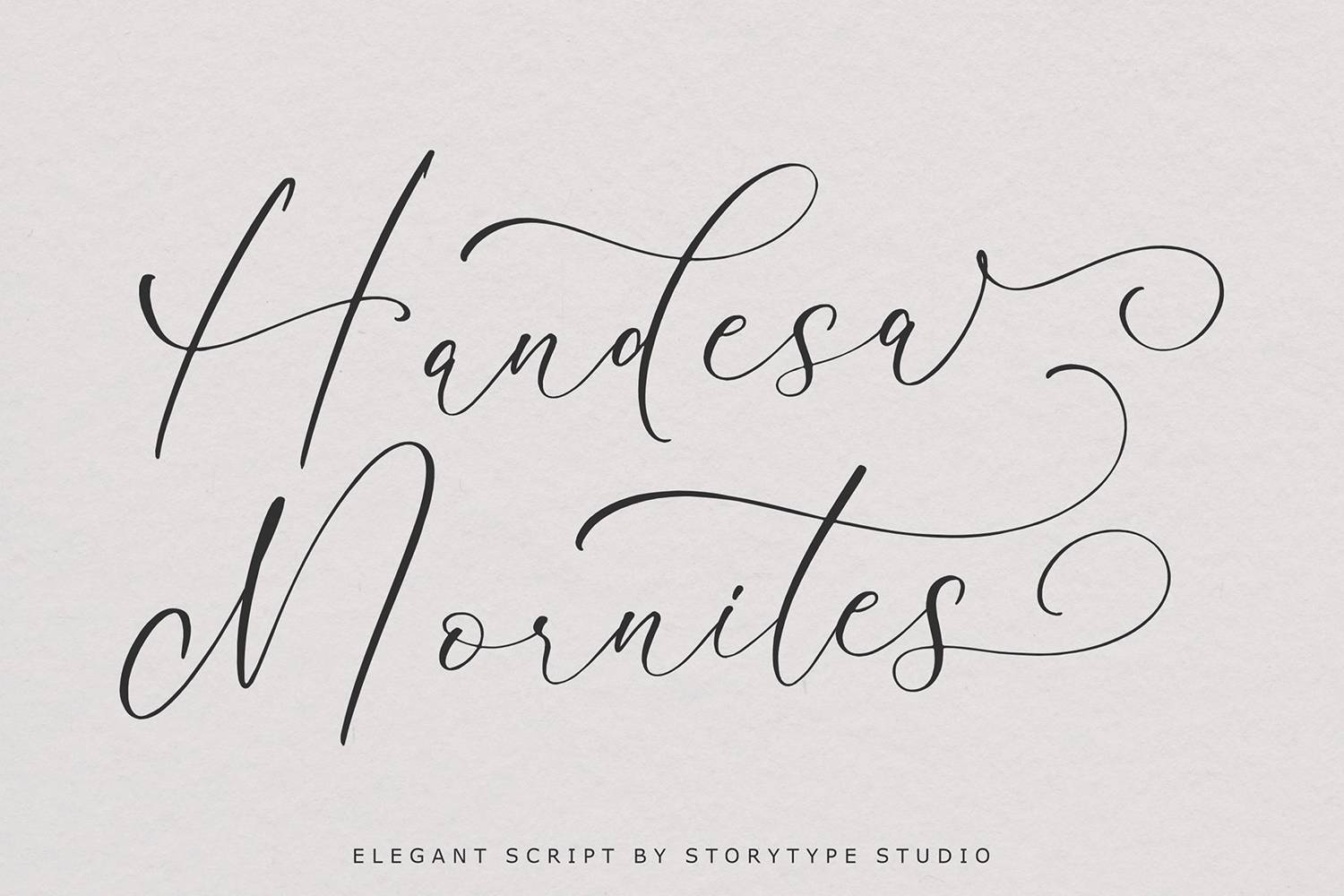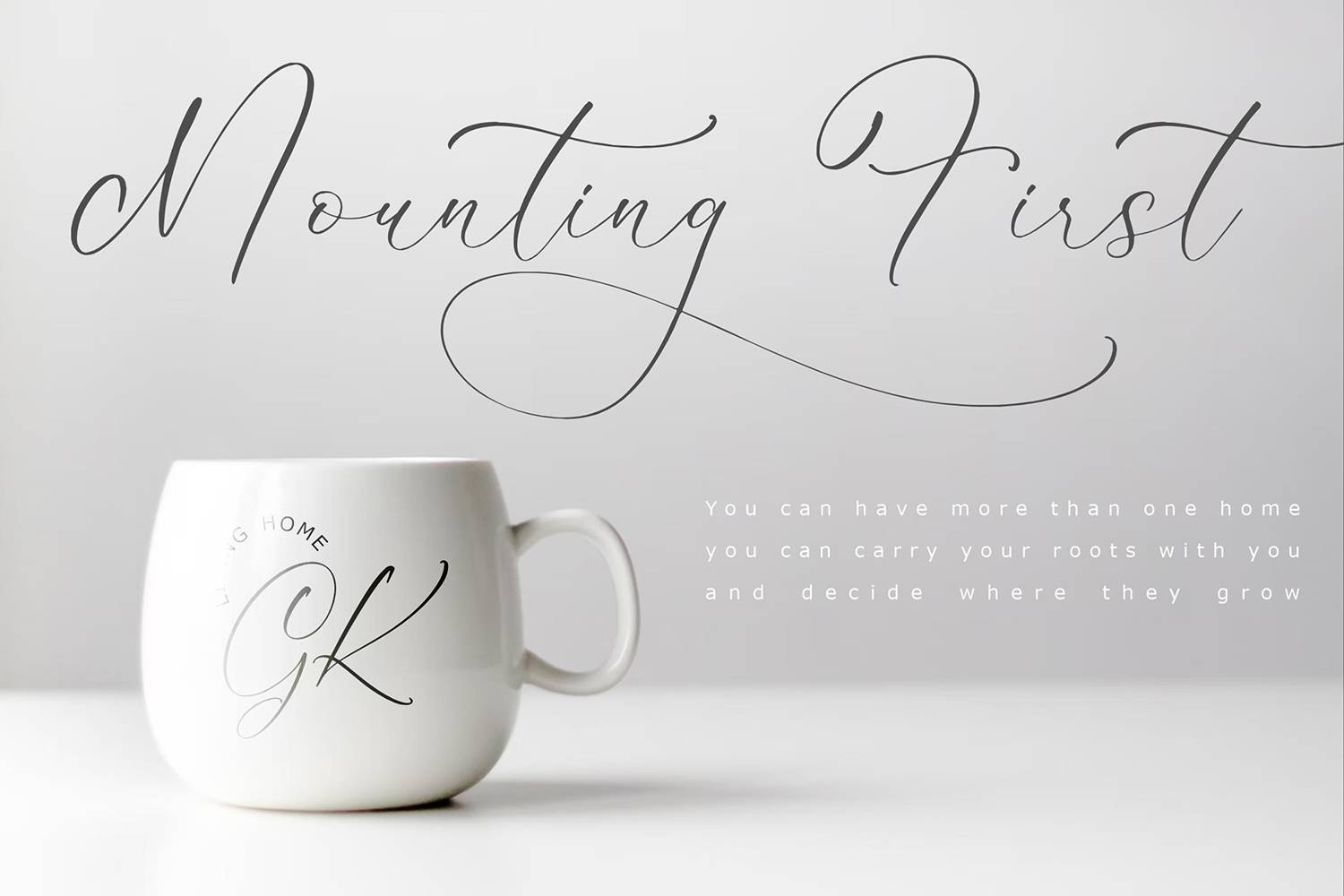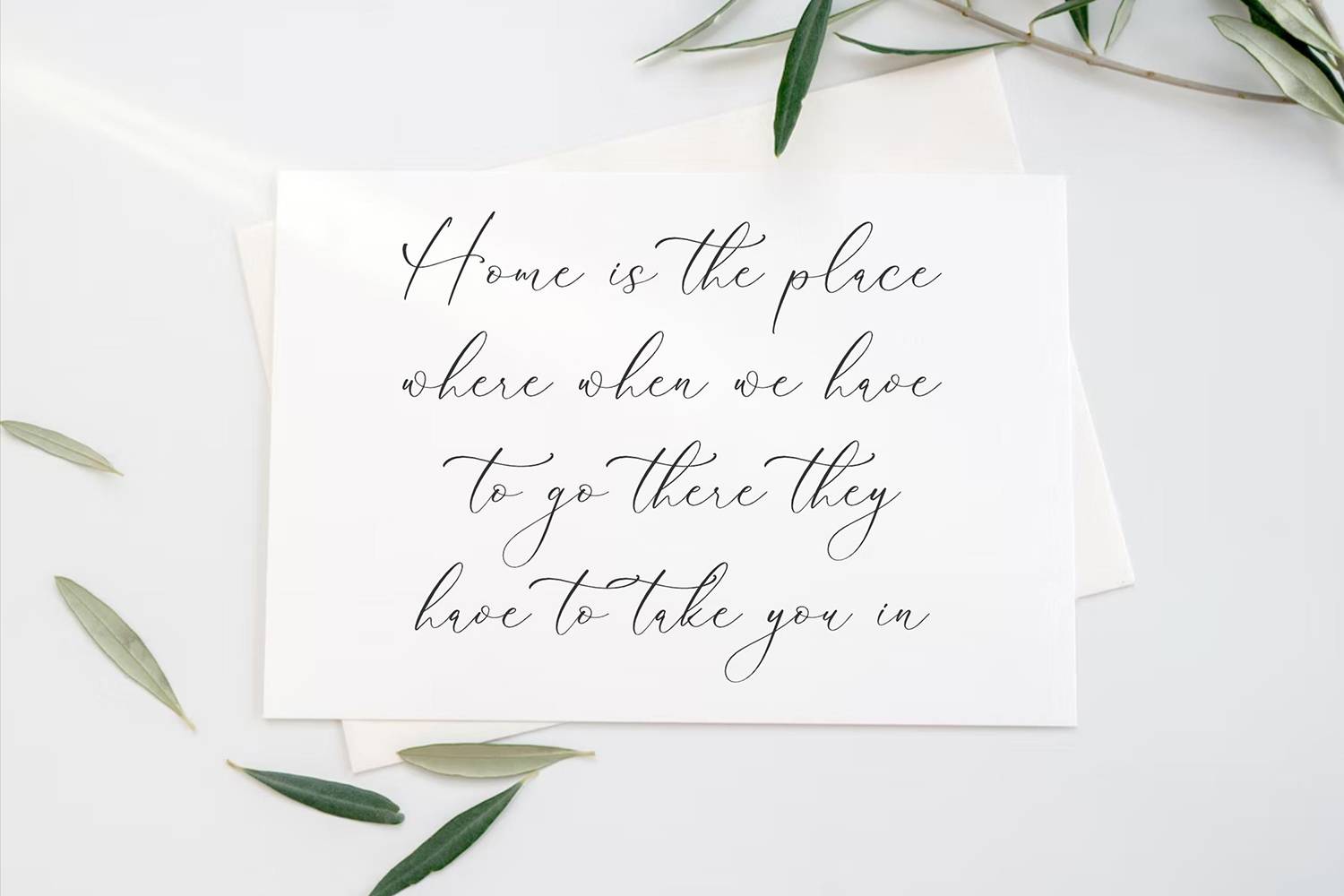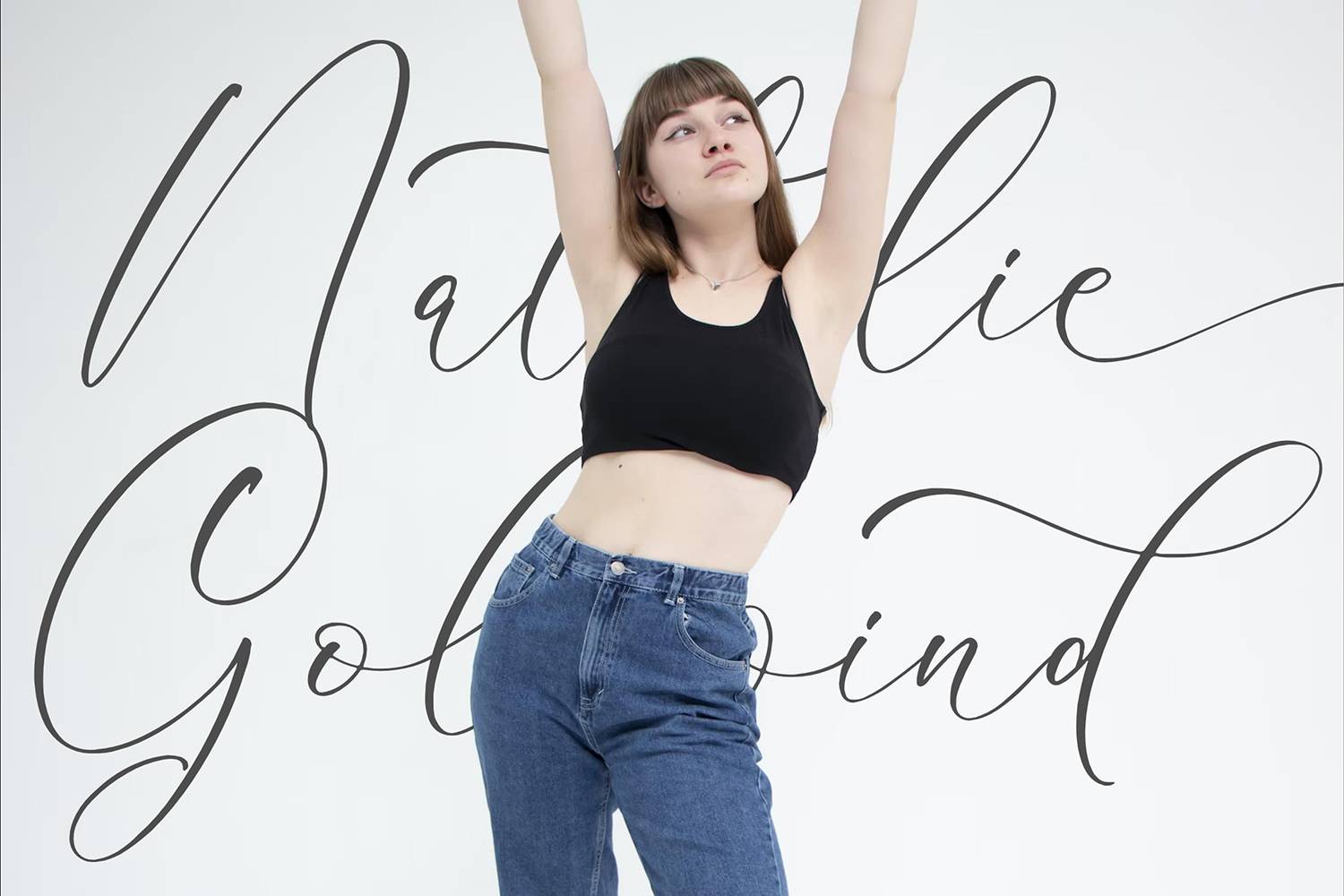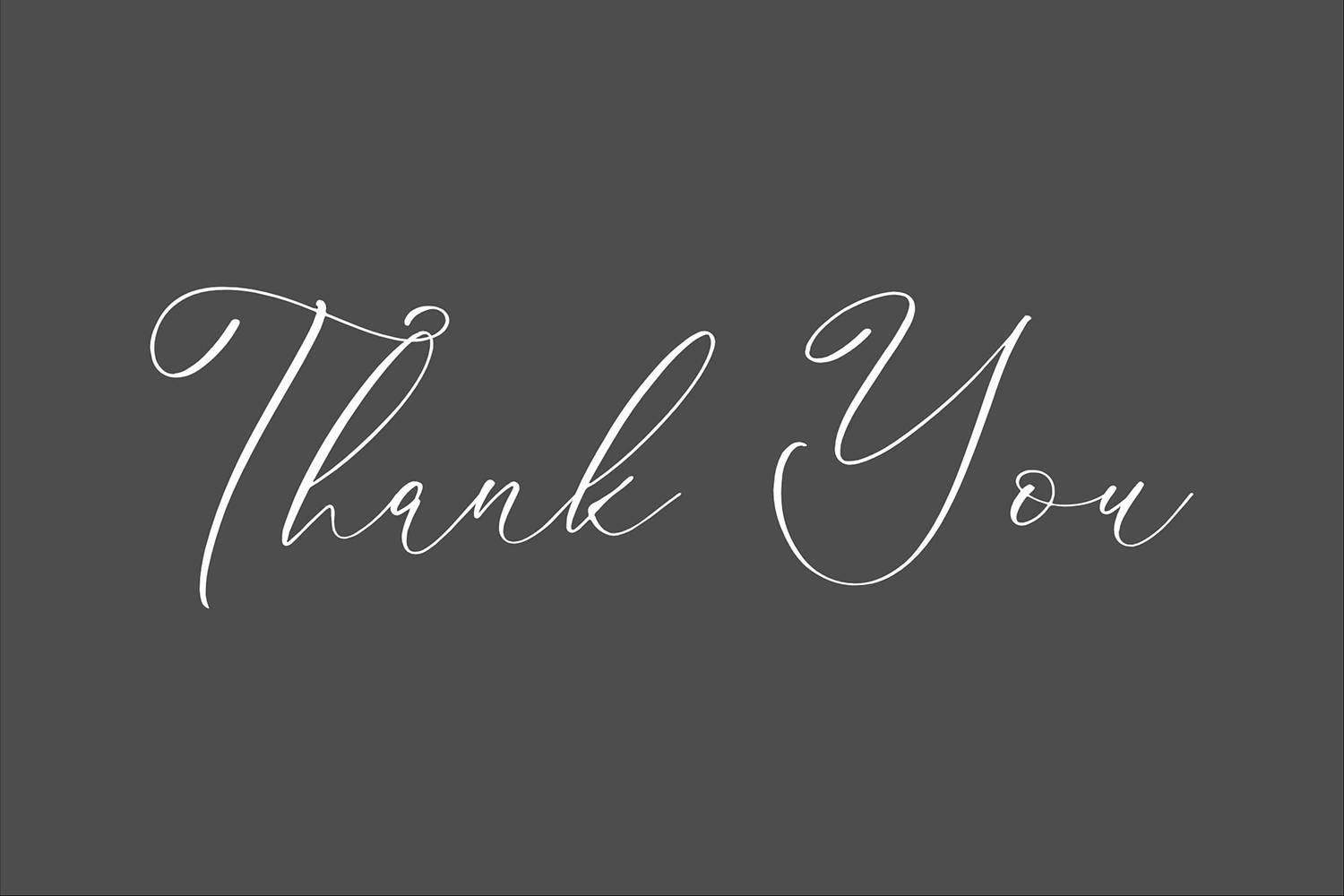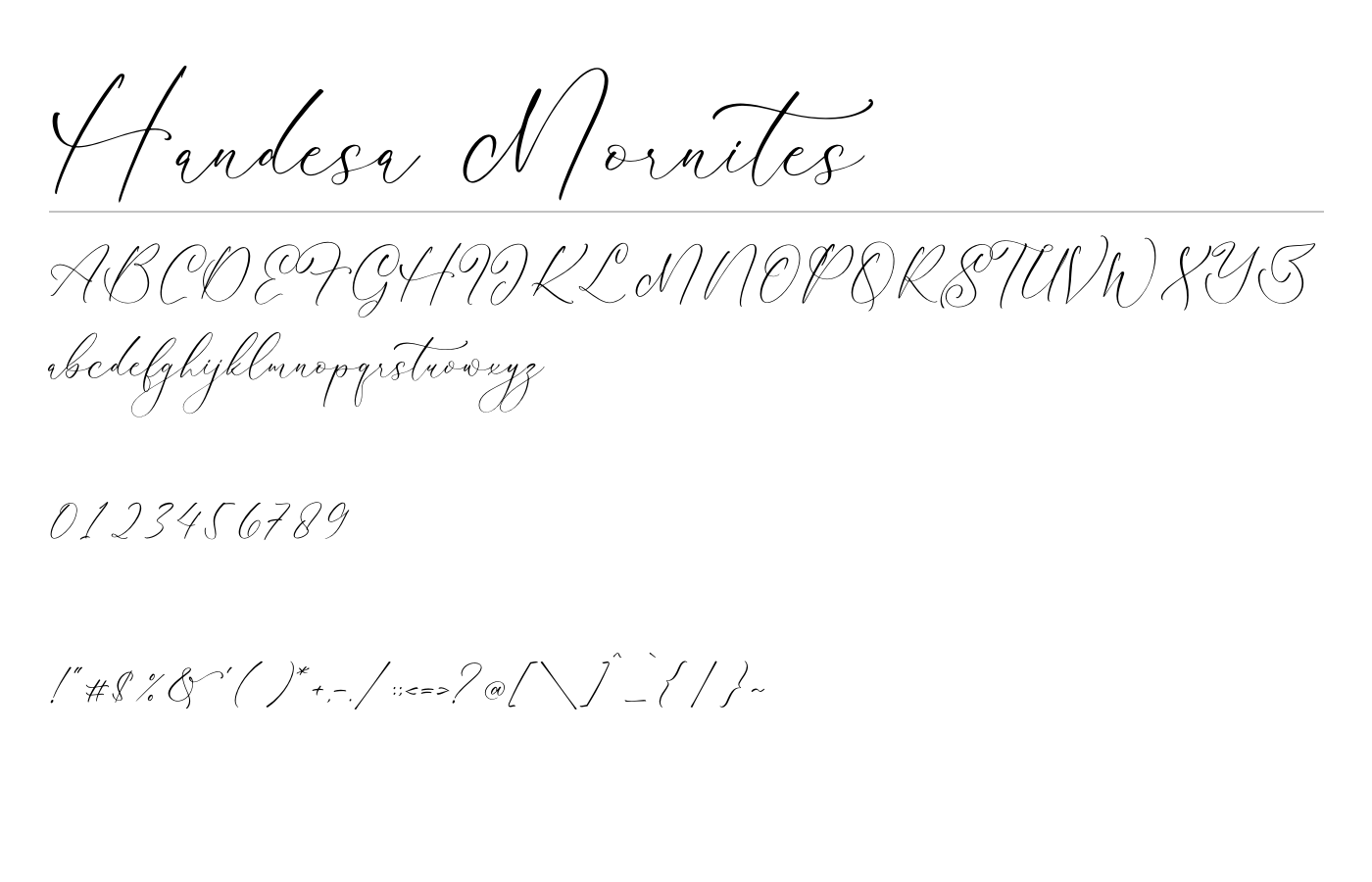
Handesa Mornites is a delicate, elegant script font characterized by its thin, flowing strokes and sophisticated calligraphic style. Its tall, narrow letterforms and delicate curves lend a refined, graceful feel, making it ideal for wedding invitations, luxury branding, and elegant editorial designs where a personal, upscale touch is desired. This font works best in decorative titles and logos, adding a sense of charm and sophistication without overpowering the design.
Handesa Mornites Font
About Handesa Mornites Font